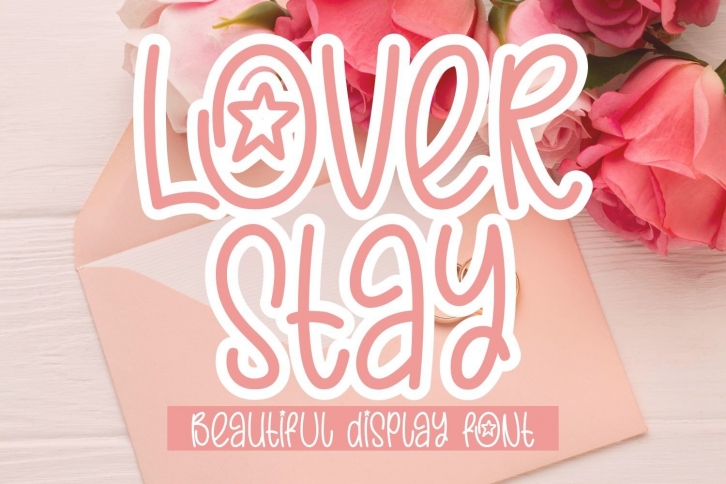
Lover Stay is a sweet and playful display font. Whether you use it for cartoon related designs, children games or just any creation that requires a lovely touch, this font will be an amazing choice.